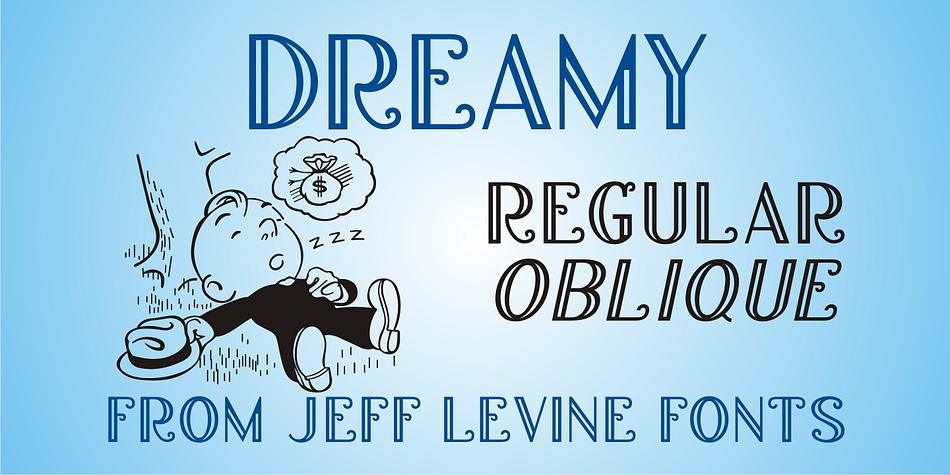
Designed by Jeff Levine, Dreamy JNL is a art deco font family. This typeface has two styles and was published by Jeff Levine Fonts.
Dreamy JNL was modeled from the hand-lettered title on the sheet music cover for “If I’m Dreaming” and features an Art Deco type design with engraved lines in both regular and oblique versions.
The Jerome Kern song was from the 1929 First National/Vitaphone picture “Sally” starring Marilyn Miller.